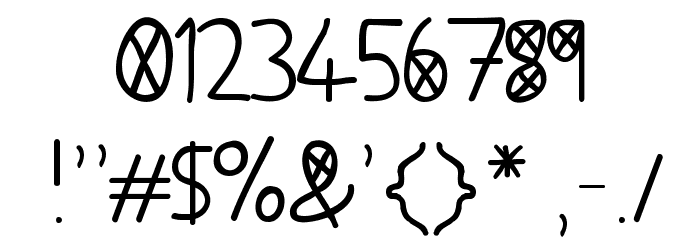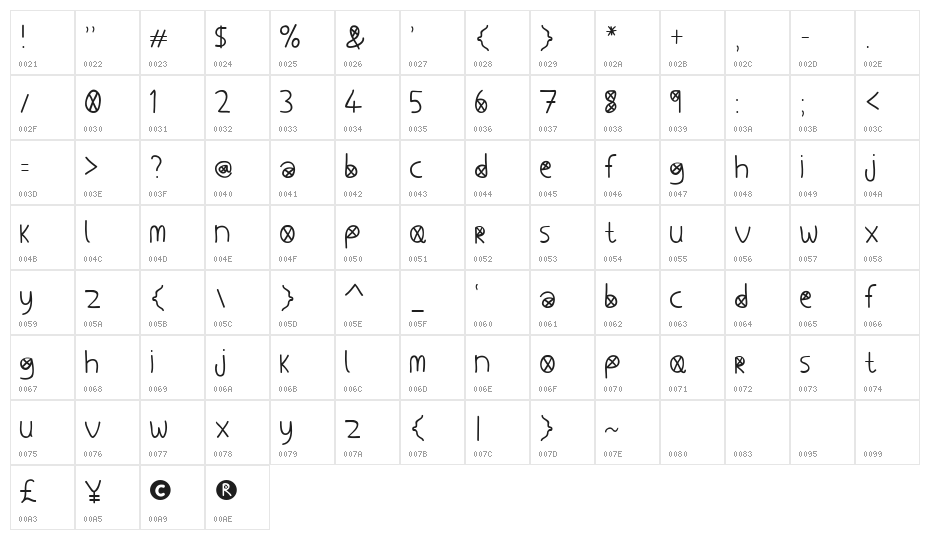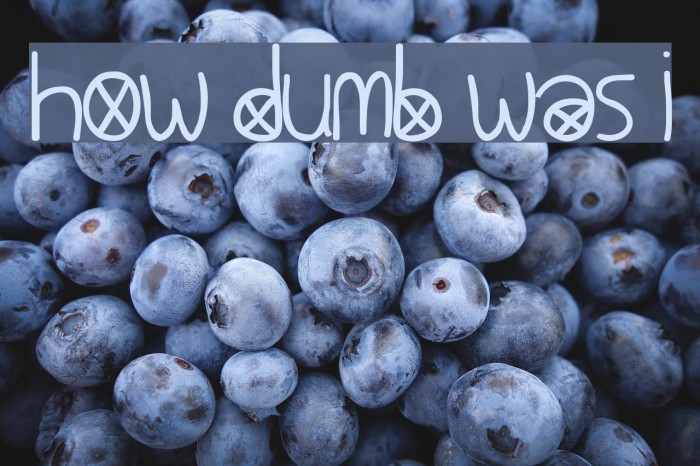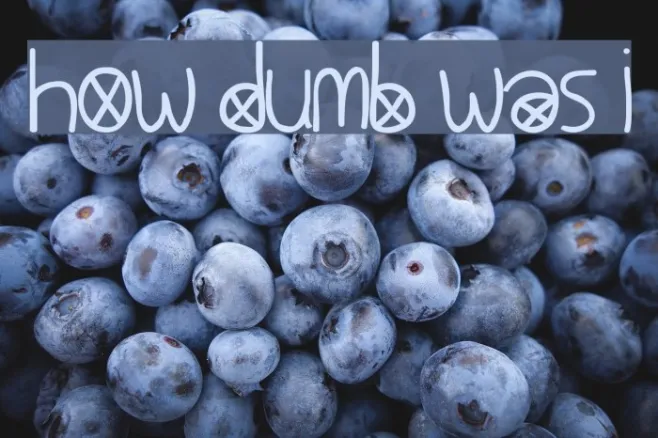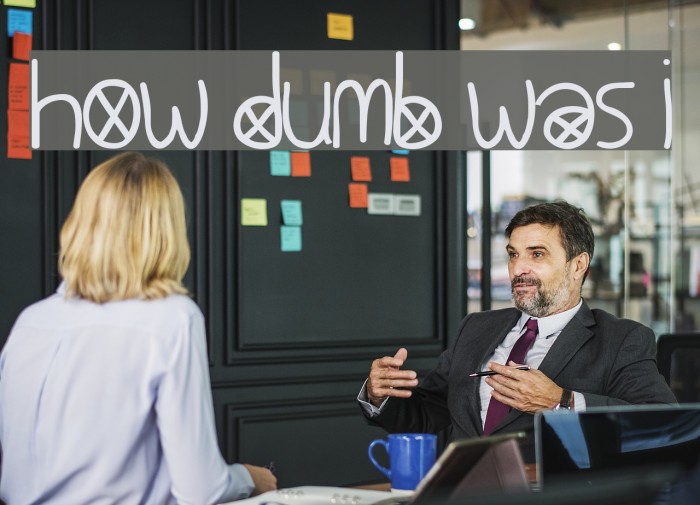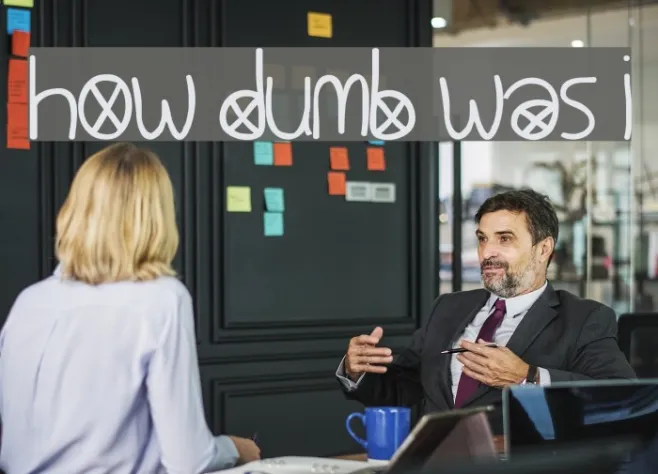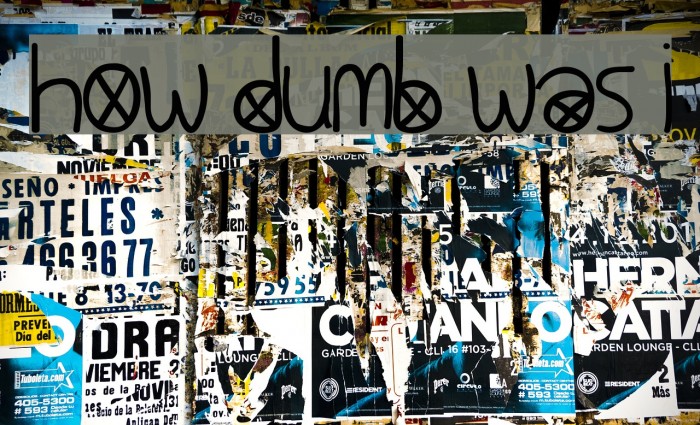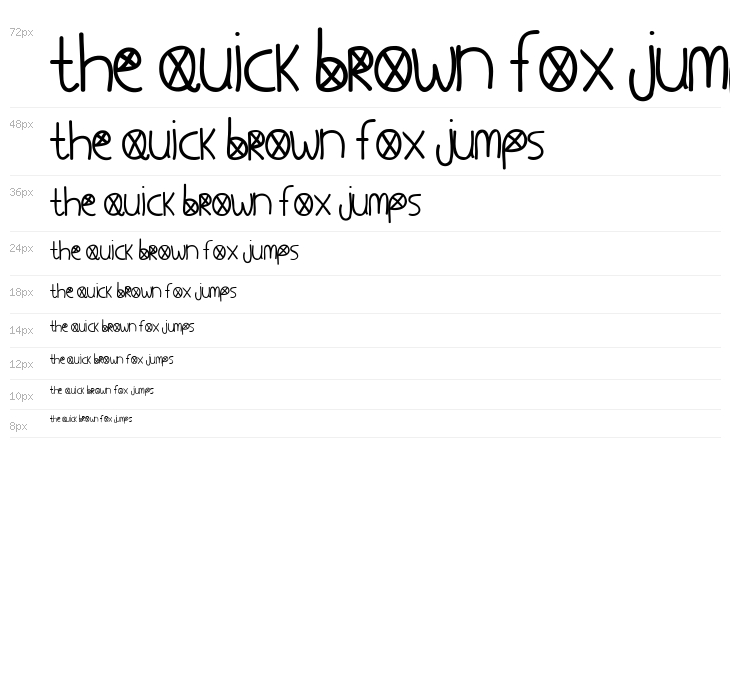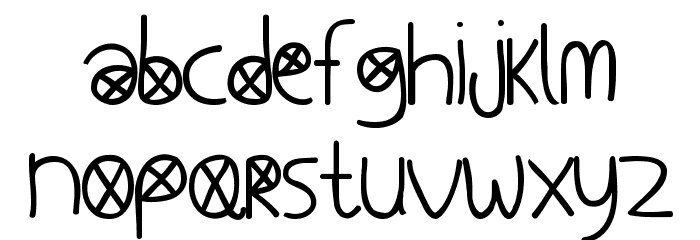
How Dumb Was I Font
How Dumb Was I Description
This font features a playful and quirky design with a handwritten style. The characters are rounded and slightly irregular, giving it a casual and friendly appearance. The letters have a consistent stroke width, and the overall look is informal and approachable. The unique design of certain letters, such as the 'a' and 'g', adds to its distinctive personality. The numbers and special characters maintain the same playful aesthetic, making it suitable for creative and informal projects.